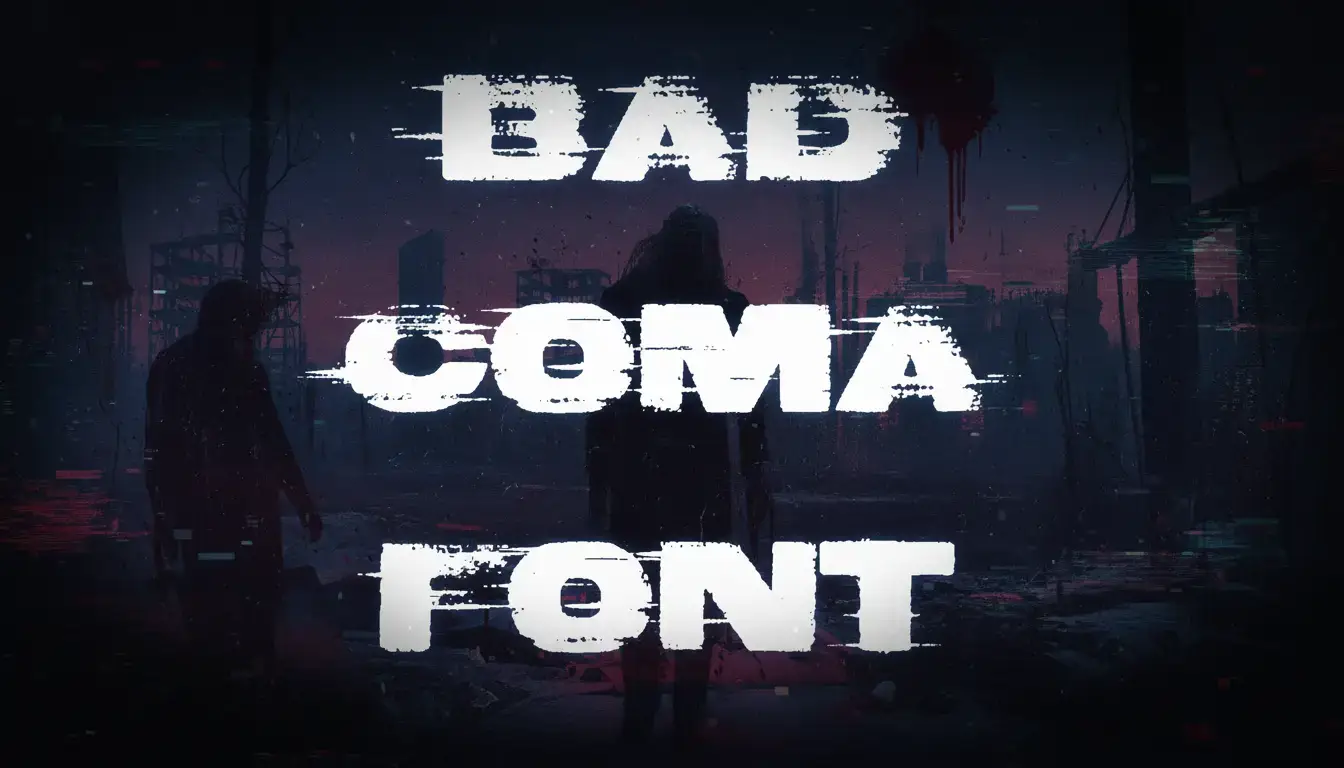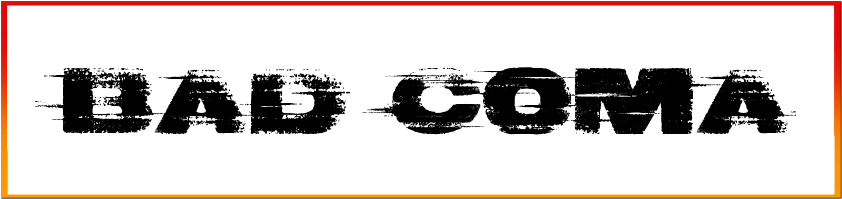
BAD COMA FONT
BAD COMA is a fancy font made by imagex. Bold and full of character, it's built to stand out rather than blend in. You can download it for free and test it with your own words in the preview above.
With complete upper and lowercase letters and all ten digits, BAD COMA is ready for real wording, not just a single headline. Common punctuation such as &, !, ? and @ is included as well. It also has the accented letters you need for Spanish, French, German, Portuguese and Italian.
BAD COMA is a natural fit for posters, logos and eye-catching headlines. Use it for one standout word or headline and let simpler fonts handle the rest.
Yes. BAD COMA includes the accented letters needed for Spanish, French, German, Portuguese and Italian, so it works for more than just English.